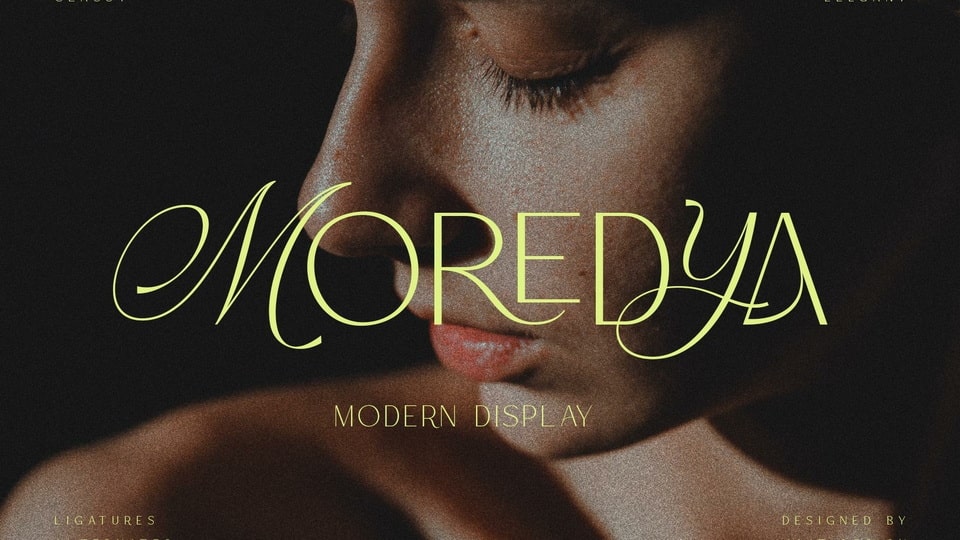
Download Moredya font, a display typeface designed by combining an elegant script with a simple and charming sans serif. Moredya is perfect for magazine cover designs, brochures, flyers, Instagram ads, Canva design and so on with unique and modern concepts.